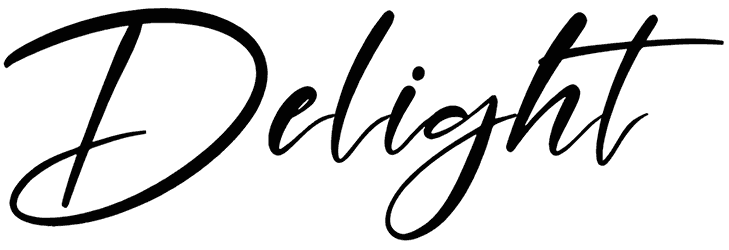
Delight Font
Are you looking for a different and more personal look? Check out the Resource Boy script font category. Well, let’s start with Delight, a delicate and refined font that changes the view of your content and takes your project to another level of satisfaction.